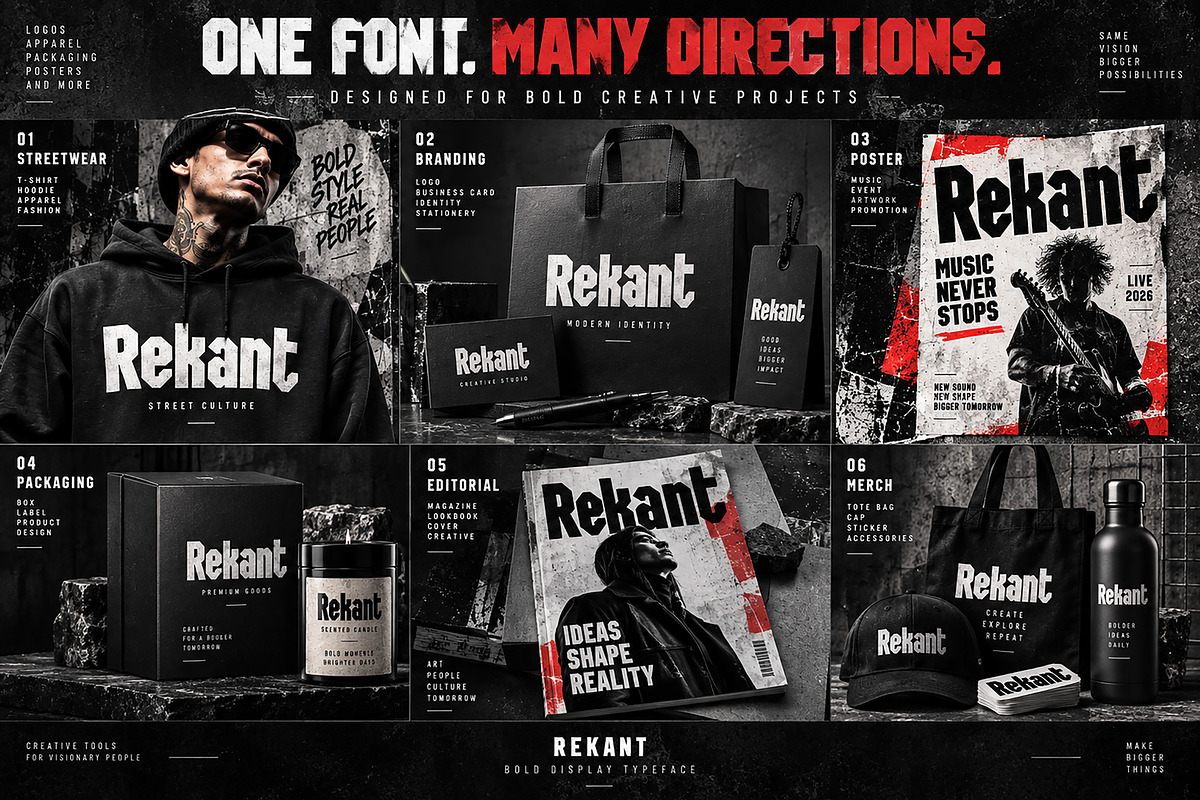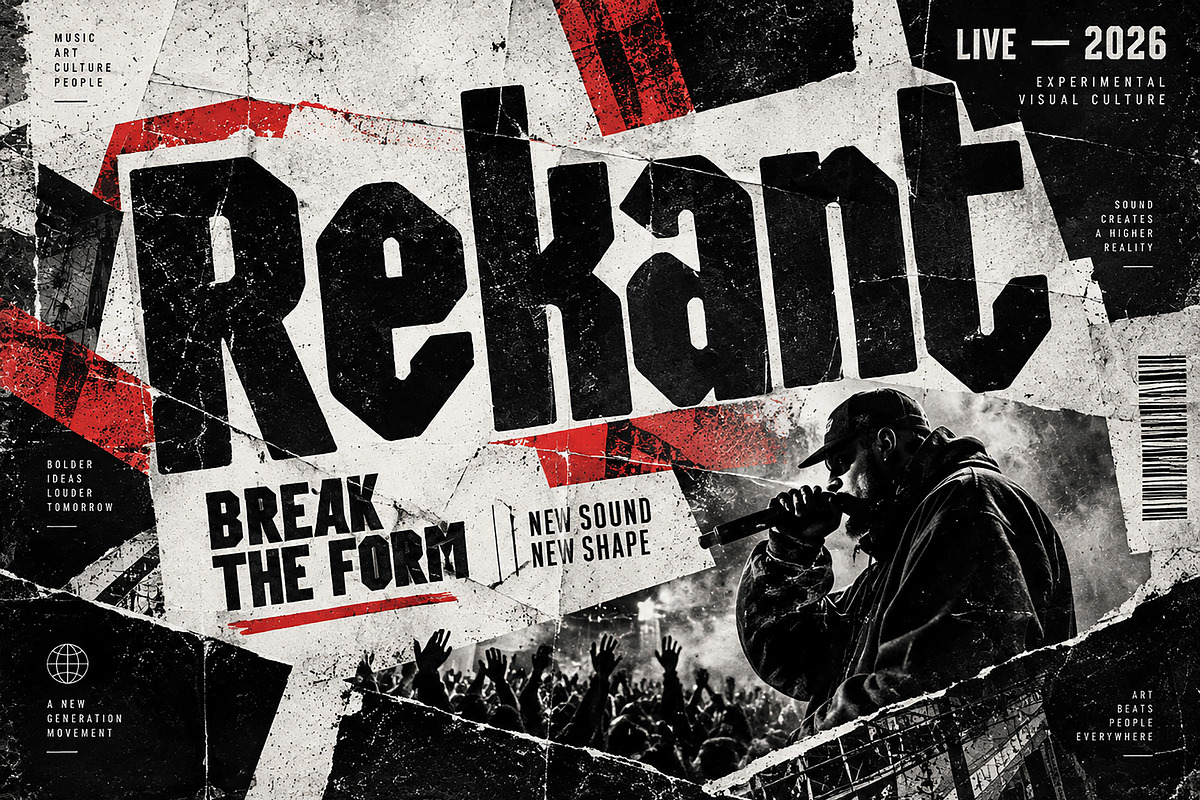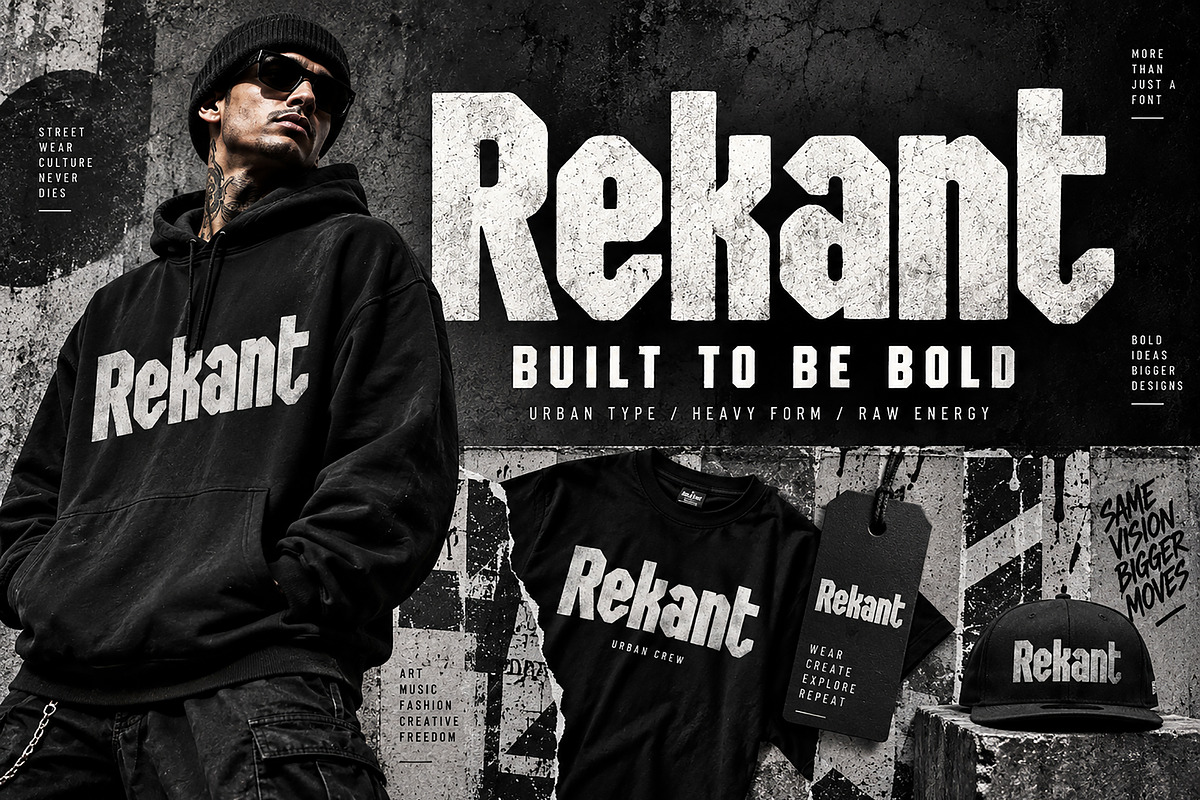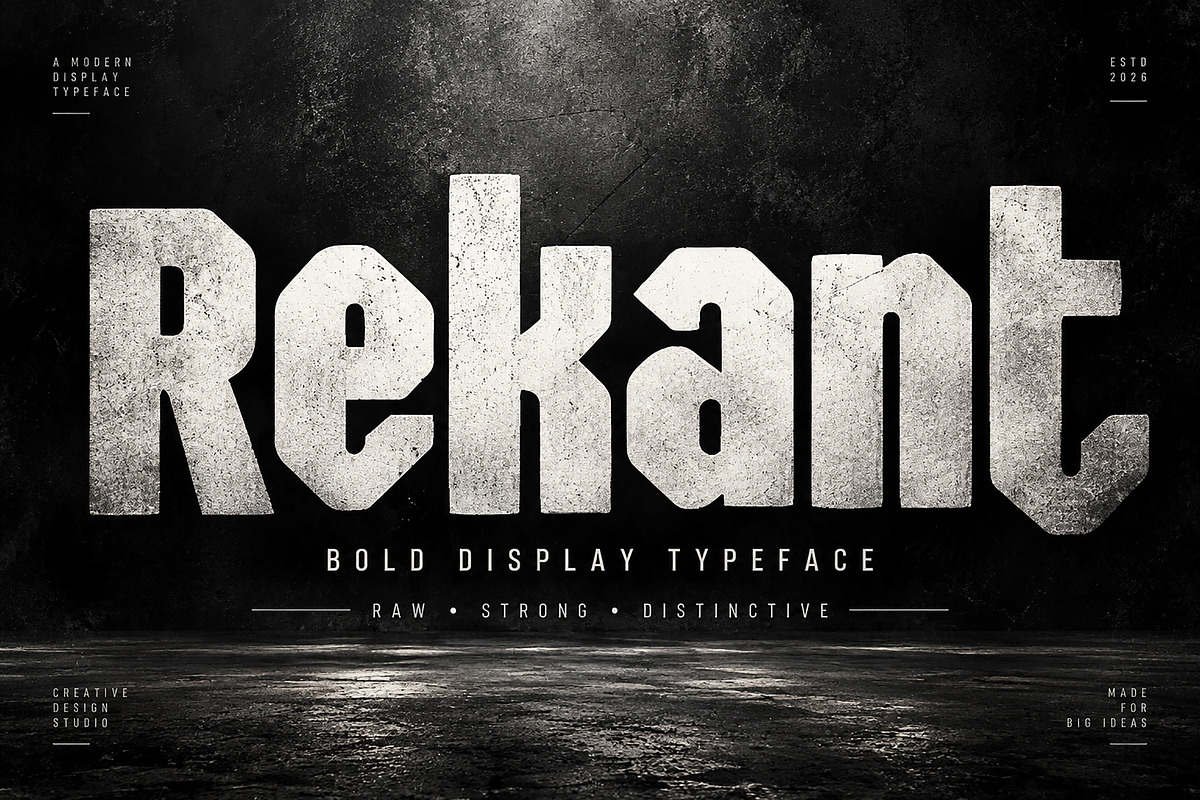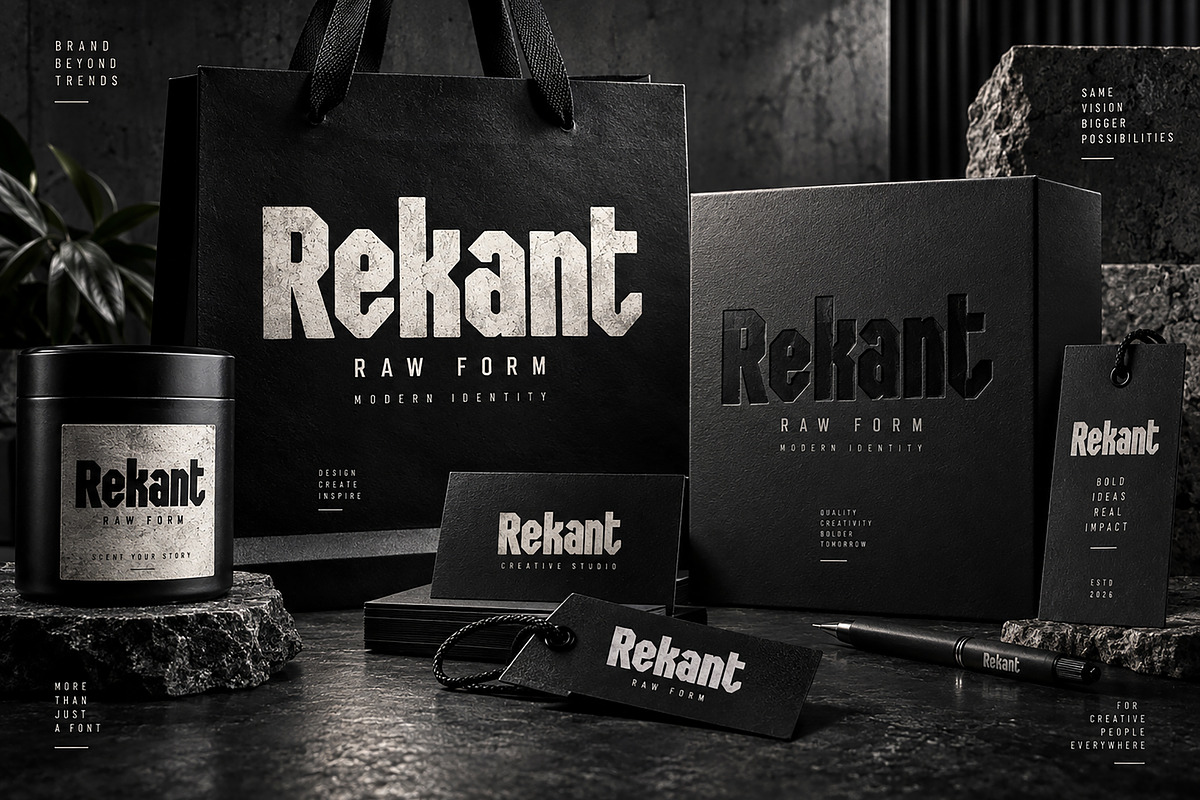
Rekant — Bold Display Typeface
Rekant is a powerful bold display typeface designed to bring a strong, raw, and unconventional personality to your creative projects. With its heavy geometric construction, distinctive angular details, and impactful letterforms, Rekant is made to command attention and create memorable visual identities.
Its bold silhouette works especially well for streetwear graphics, branding, posters, music artwork, packaging, editorial layouts, merchandise, labels, headlines, and advertising designs.
Whether you're creating a bold fashion campaign, an urban poster, a modern brand identity, or eye-catching merchandise, Rekant delivers a confident and contemporary visual presence.
Streetwear & Apparel Design
Logo & Brand Identity
Posters & Flyers
Music & Album Artwork
Event Graphics
Editorial & Magazine Covers
T-Shirts & Hoodies
Labels & Badges
Advertising & Headlines
Rekant — Bold Form. Strong Identity.